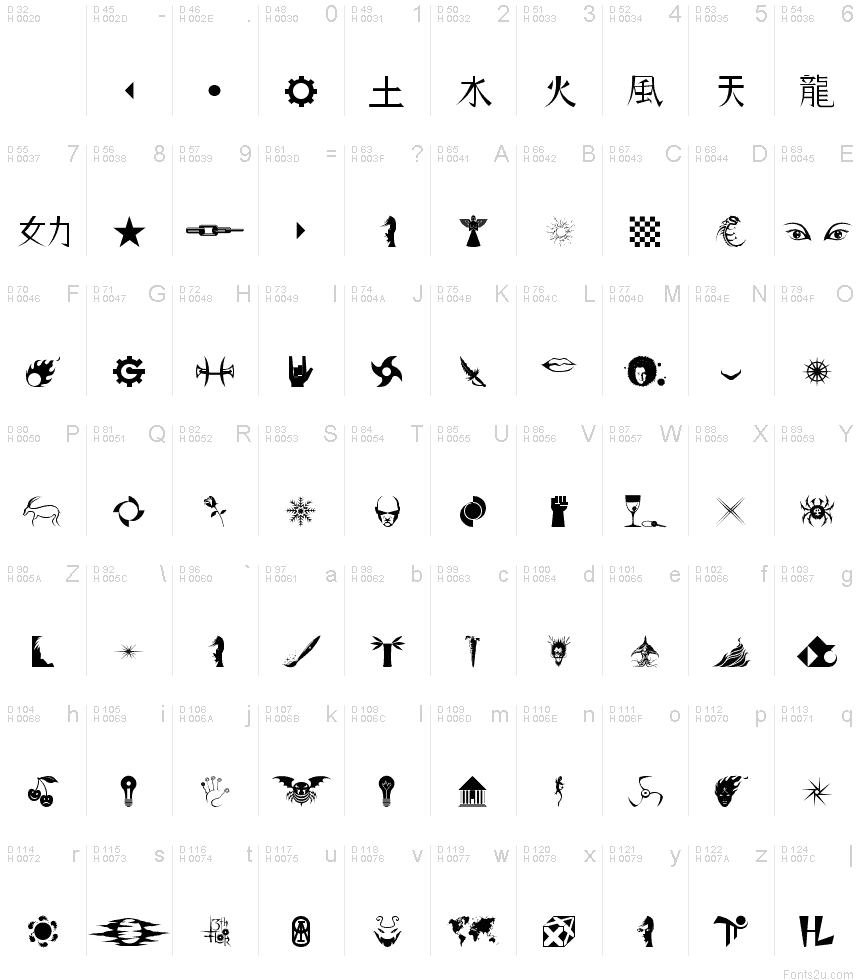
Hong's 2 Dings
Hong's 2 Dings font by Hong Li is a free dingbat font that trades letters for bold, inky symbols. From razor-edged tribal marks and shuriken-like swirls to a sleek gecko silhouette and geometric badges, each glyph feels like a ready-made logo or tattoo flash. The shapes are solid black, crisp, and graphic, so they punch through even at small sizes while still feeling organic and hand-drawn.
Using Hong's 2 Dings, you can drop instant icons into band posters, zine covers, skate graphics, sticker packs, album art, and edgy branding experiments. This free font shines when a single symbol acts as the hero element-set it large and surround it with a clean sans-serif for text to keep the layout balanced and readable.